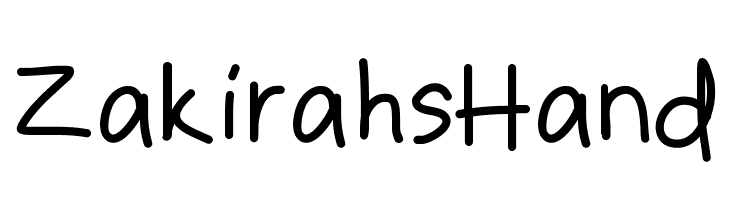
A lively, cursive font with interconnected characters and a whimsical charm.
( Fonts by Peter Olexa )
A lively, cursive font with a playful, handwritten style.
( Fonts by Maulana Creative )
Elegant handwritten script font.
( Fonts by Pinisiart )
Playful handwritten font with rounded edges.
( Fonts by Maulana Creative )
A dynamic and fluid script font with elegant, flowing letterforms.
( Fonts by Aleksandar Stevanov )
A bold, dynamic script font with a handwritten style.
( Fonts by Bree Gorton )
A playful, bold handwritten font with a casual and friendly style.
( Fonts by Bree Gorton )
A bold, hand-drawn font with a playful shadow effect.
( Fonts by Hatf Type )
A lively, expressive handwritten font with dynamic strokes and a playful style.
( Fonts by Hatf Type )
A lively handwritten font with fluid, cursive strokes and expressive characters.
( Fonts by wep )